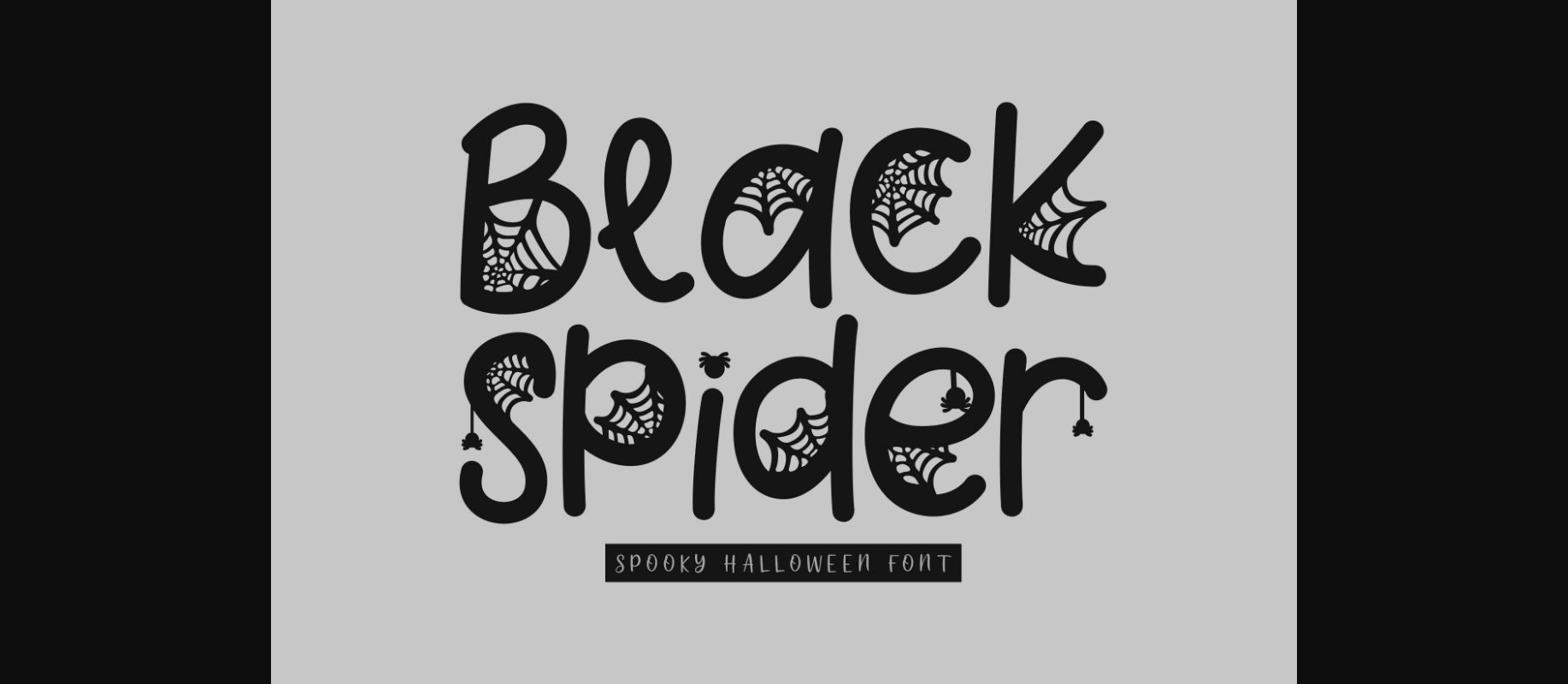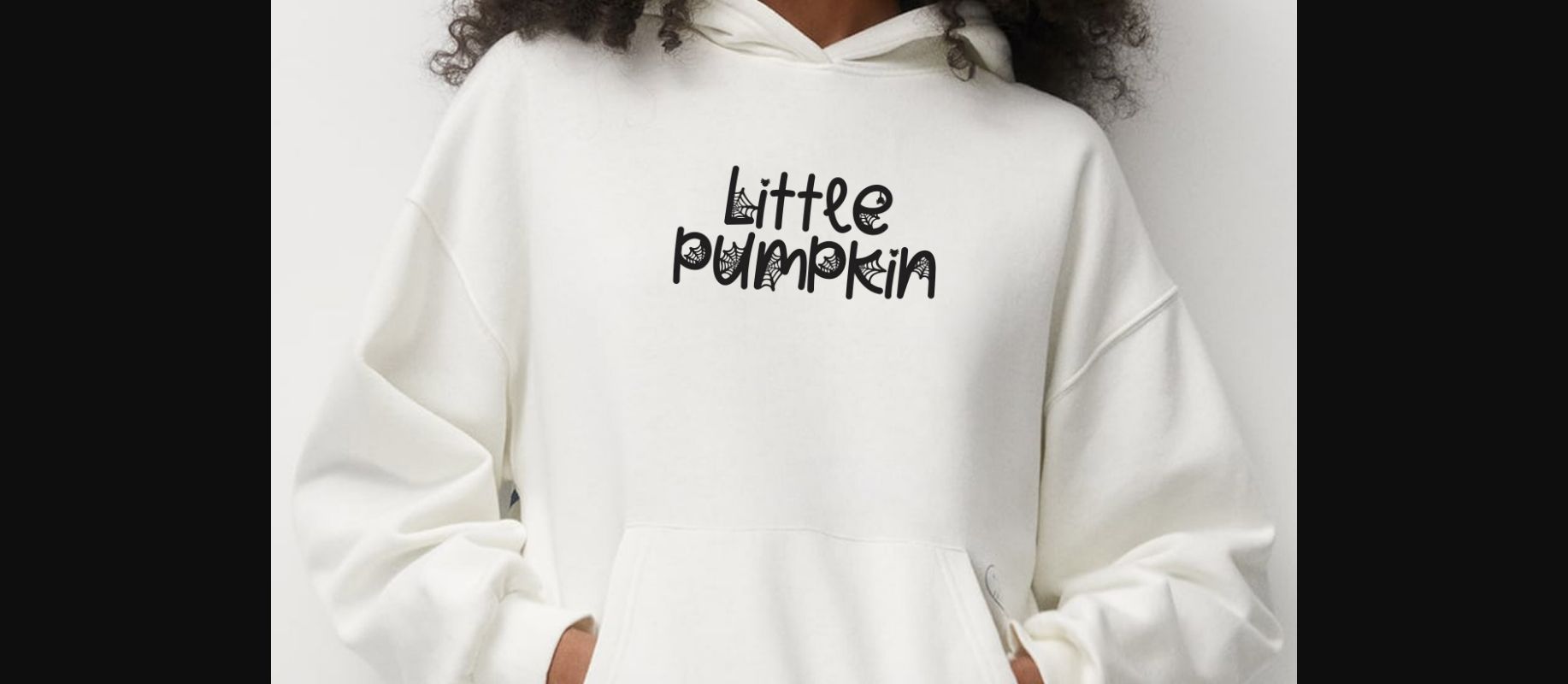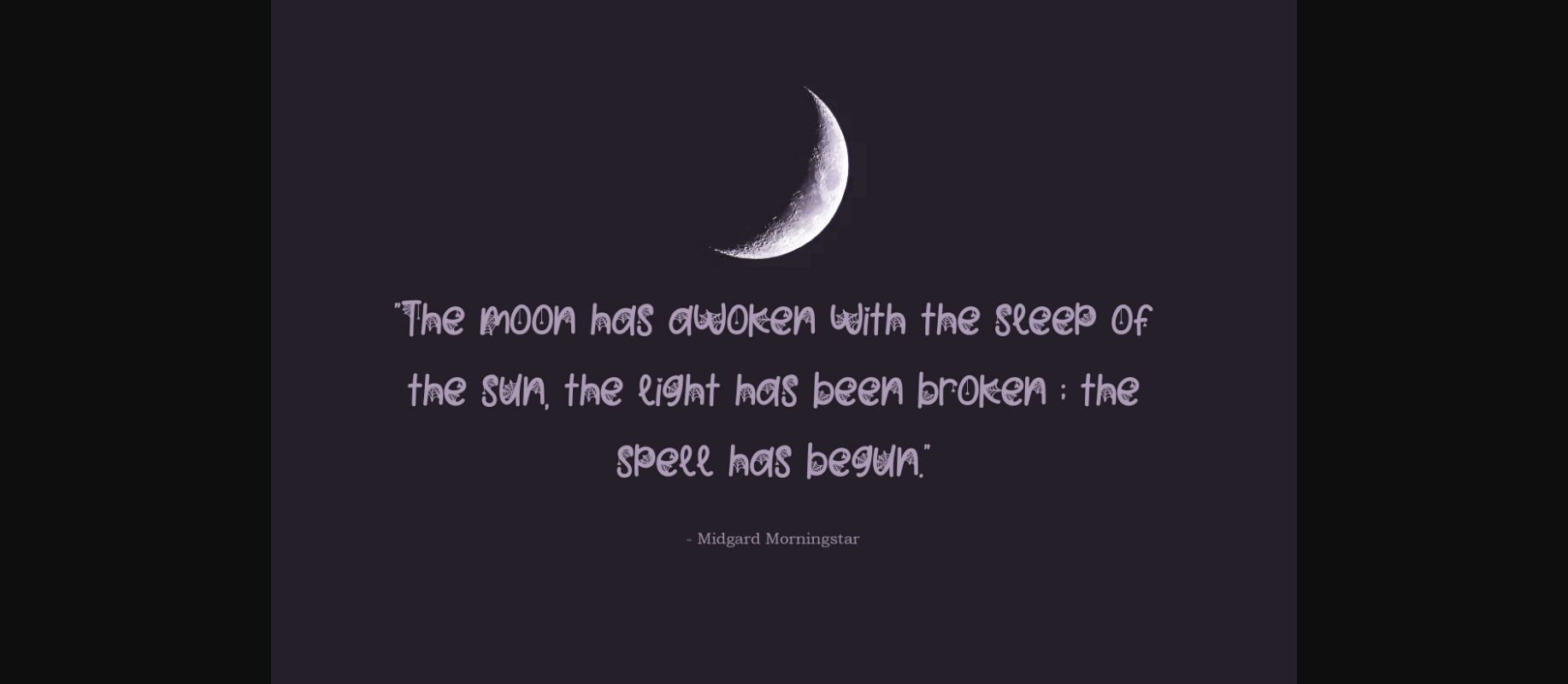
About Black Spider Font
Black Spider font is a spooktacular decorative typeface that weaves the eerie magic of Halloween into every letter. With spiders hanging and spiderwebs, this font adds a hauntingly playful element to your designs. Perfect for creating chilling invitations, posters, and spooky signage, Black Spider font will send shivers down your spine.